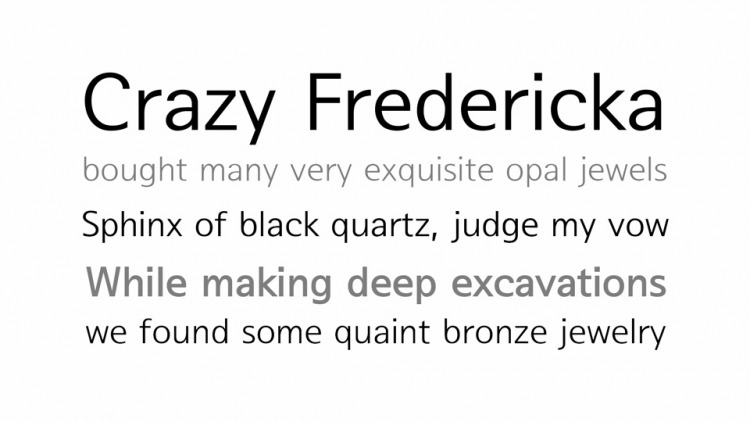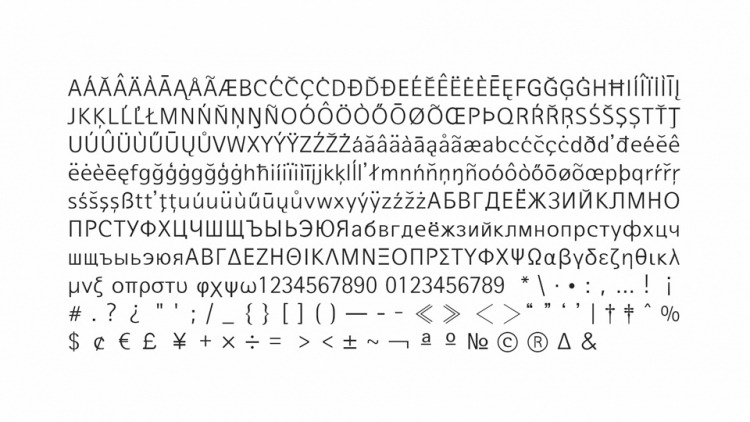
Jemima Sans Serif Font
This Font is a distinctive sans serif typeface that is inspired by Rotis Sans Serif. Unique shapes and contrasting lines create this memorable font with a fine vibe & flow. The family comes with 6 weights and matched Italics, supports Greek and Cyrillic.